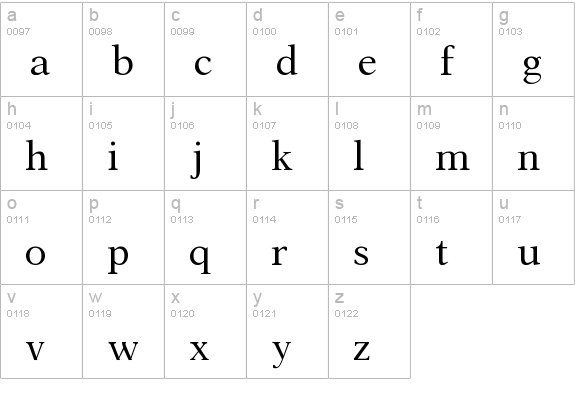
Aster MN Roman Font Details
Introducing Aster MN Roman, a timeless and elegant font that exudes sophistication and style. This classic typeface features clean lines and graceful curves, making it perfect for a wide range of design projects. Whether you're creating invitations, branding materials, or editorial layouts, Aster MN Roman is sure to make a lasting impression. What's even better is that Aster MN Roman is available for free download at FontsMarket.com. This means you can easily access this beautiful font and incorporate it into your creative work without any cost. Don't miss out on the opportunity to enhance your designs with the timeless beauty of Aster MN Roman – download it today and let your creativity shine!